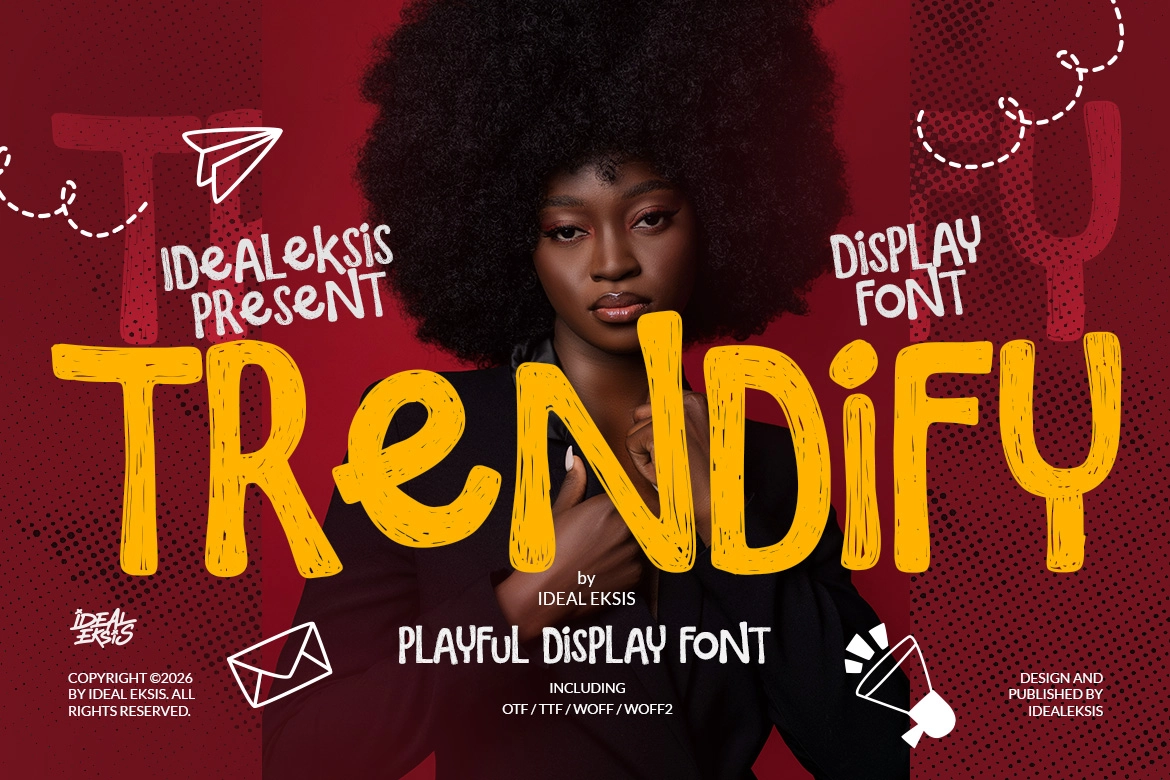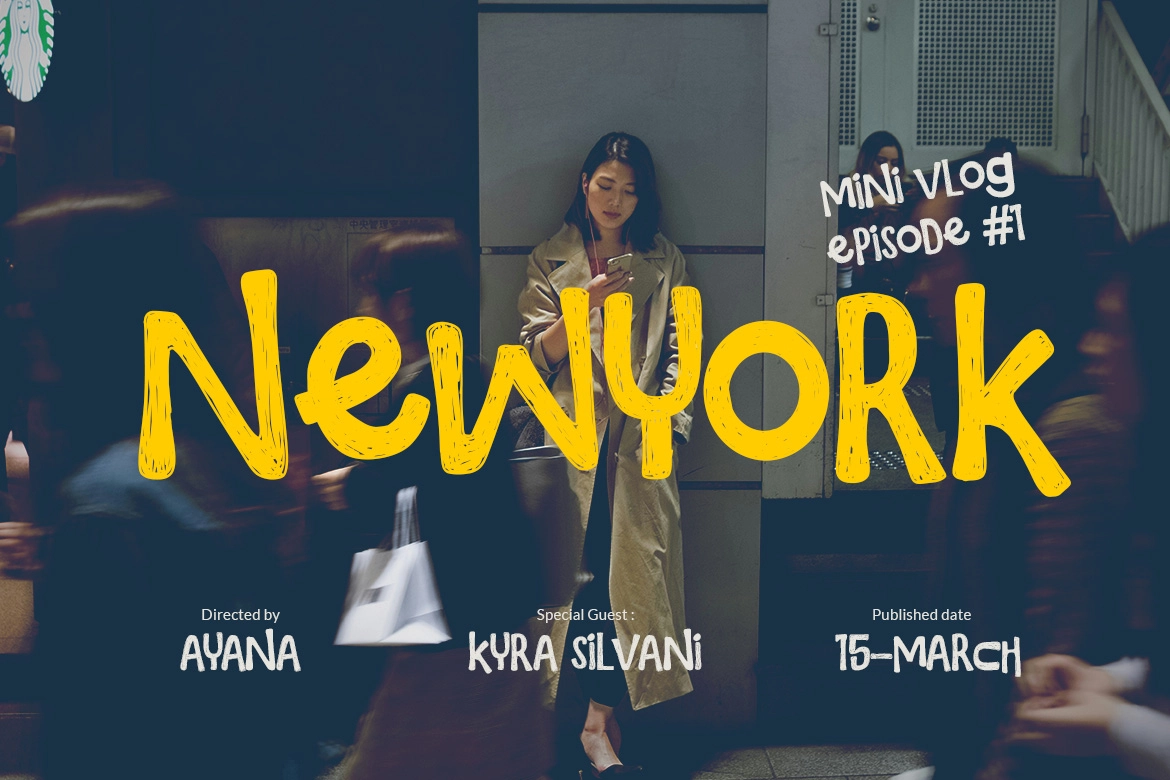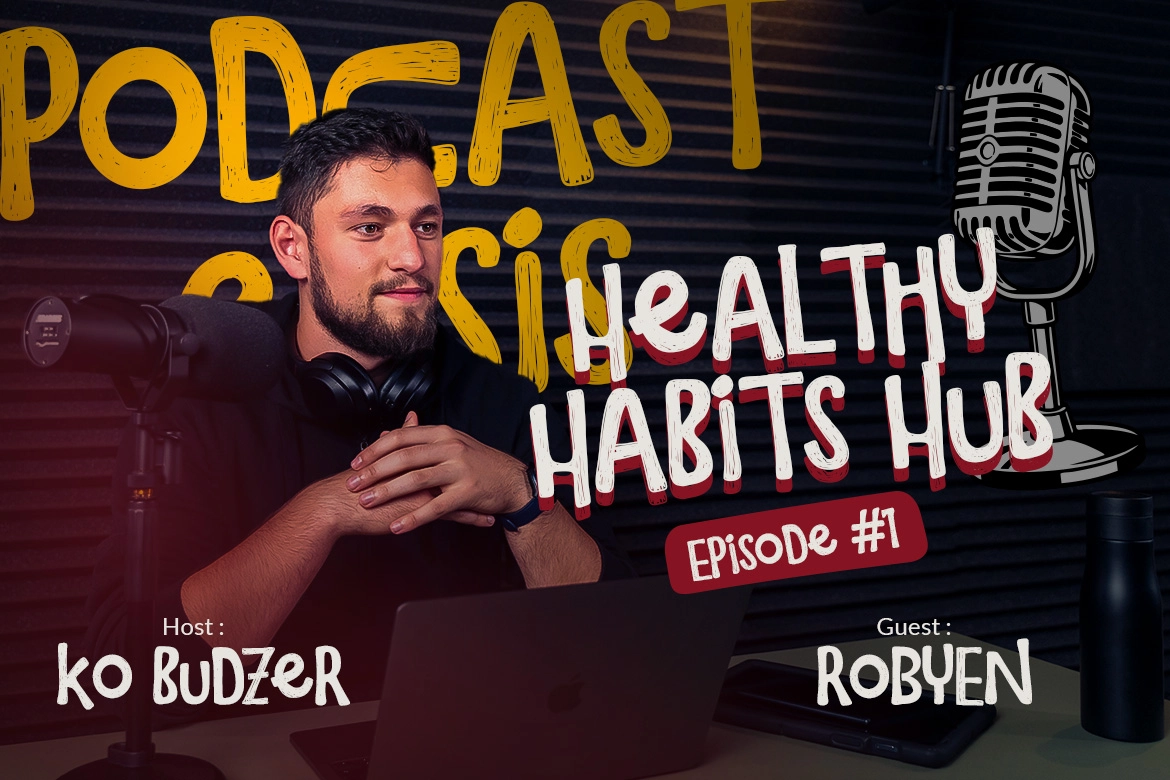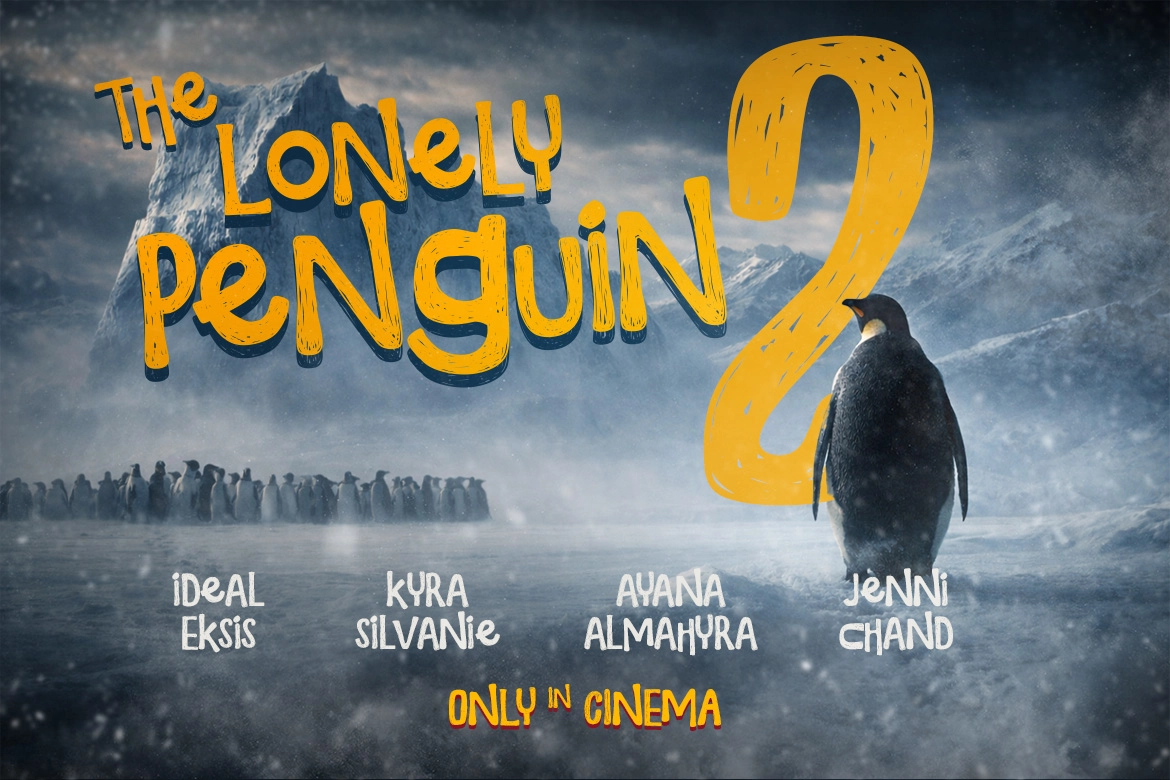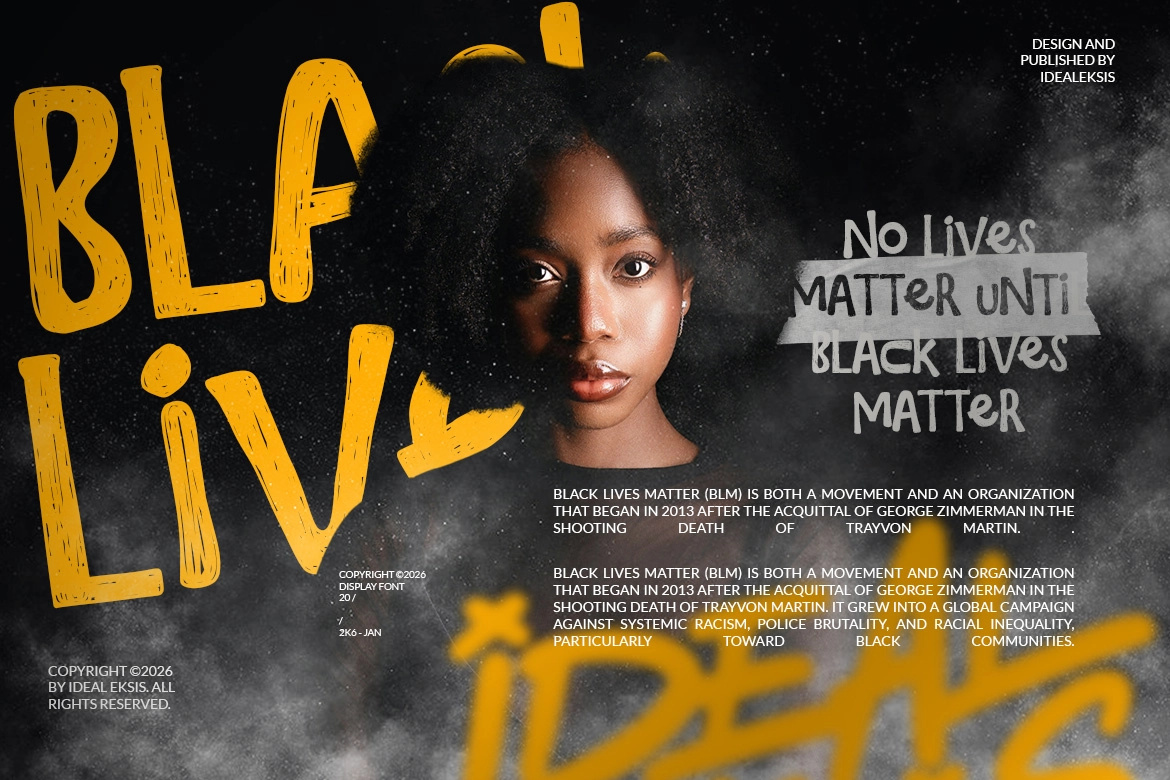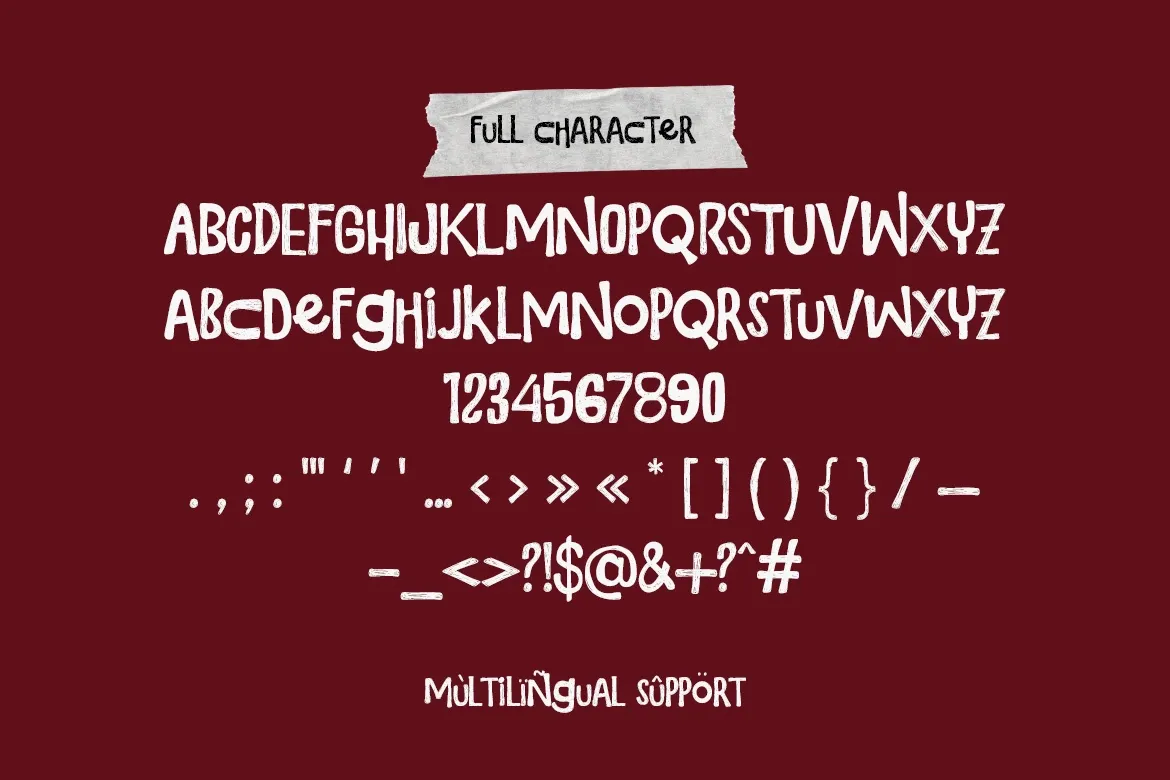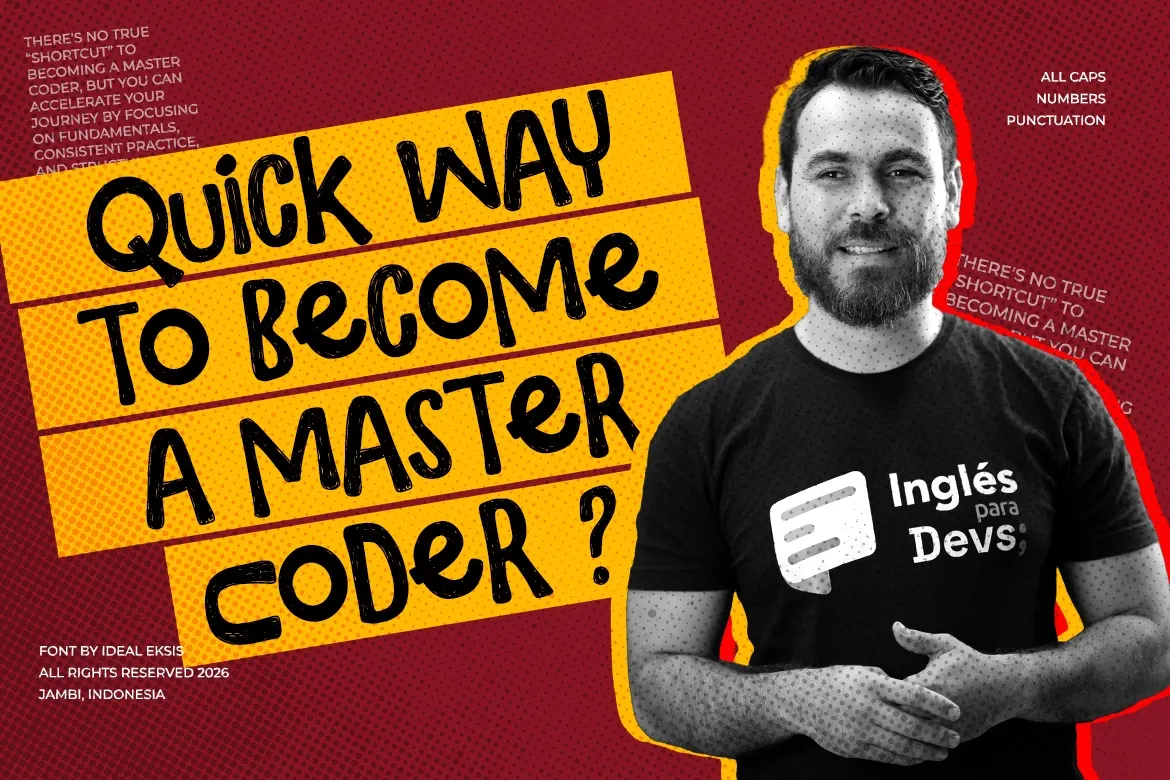
Trendify - Playful Hand-Drawn Display Font
Trendify
Trendify – Playful Hand-Drawn Display Font is a bold and energetic typeface crafted to make a strong visual statement. Featuring thick, hand-drawn strokes with a textured, marker-like finish, Trendify delivers a lively and expressive character in every letter.
The playful irregularity in baseline and letter height gives the font a dynamic, youthful personality, while rounded terminals and its heavy weight ensure maximum impact in large-scale designs. Perfect for posters, social media graphics, branding, merchandise, headlines, packaging, and creative projects that need an informal and eye-catching touch.
Trendify is designed to grab attention and bring fun, confident energy to your typography.